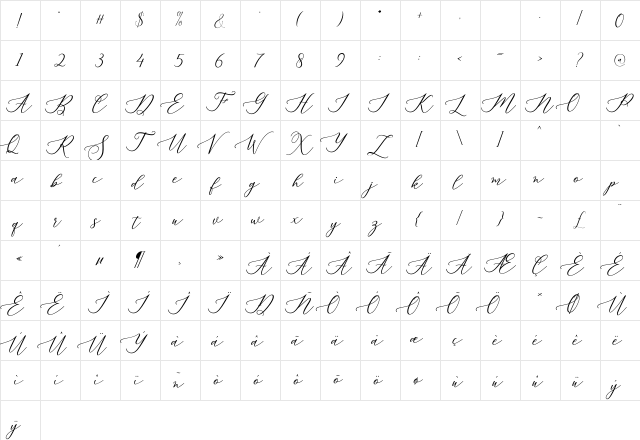
Melinda Regular
Design Context for Melinda Typeface
Melinda is a composed and adaptable typeface that performs quietly and consistently across a wide range of design contexts.